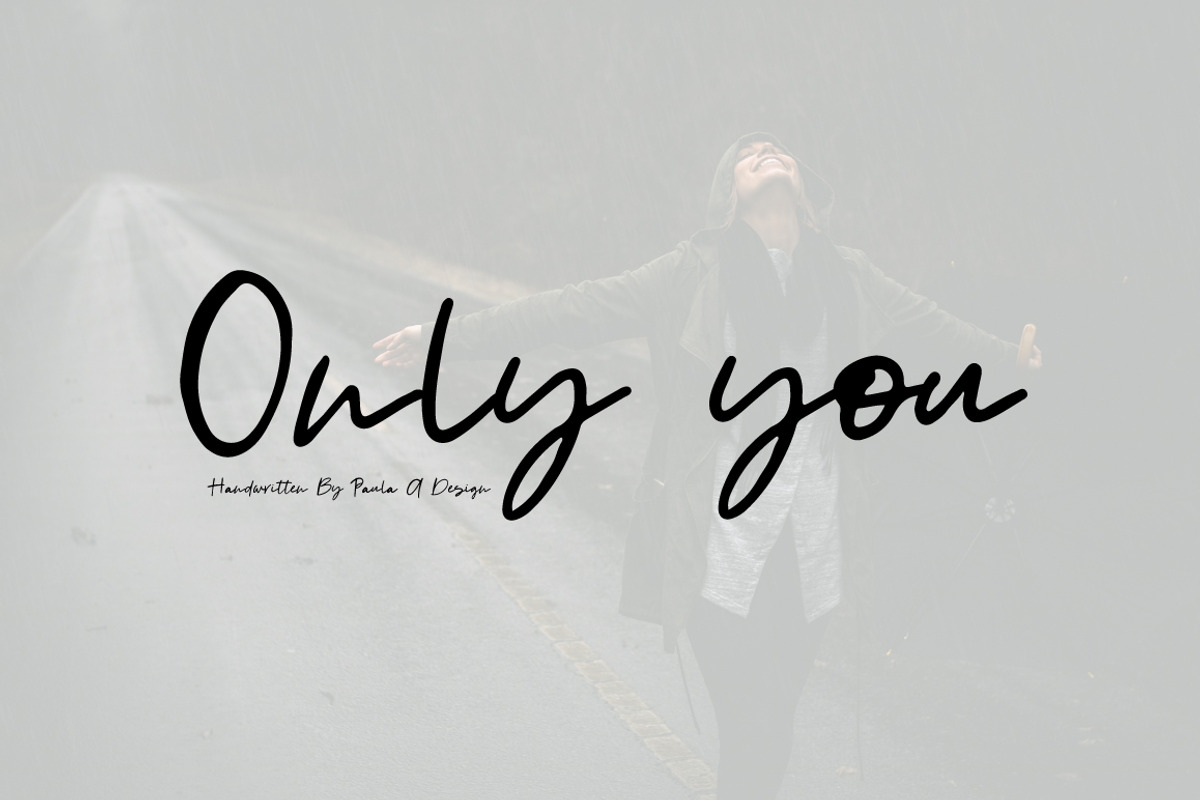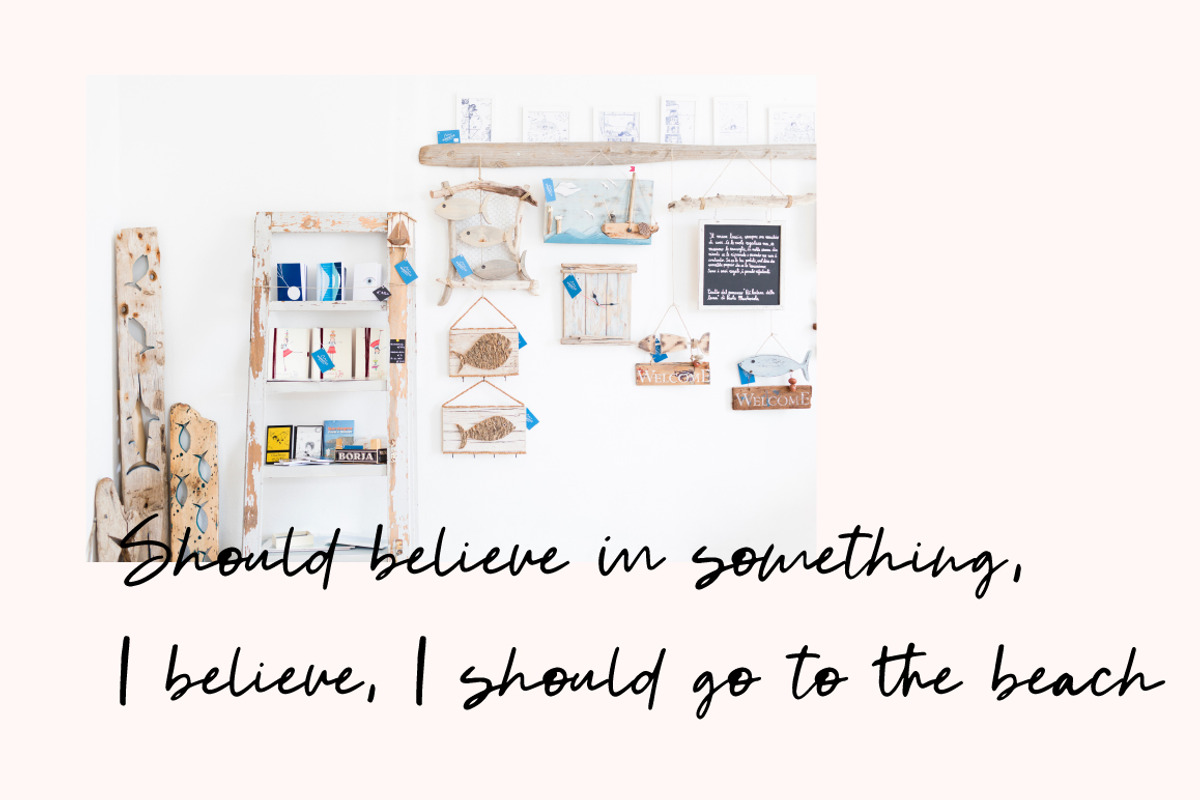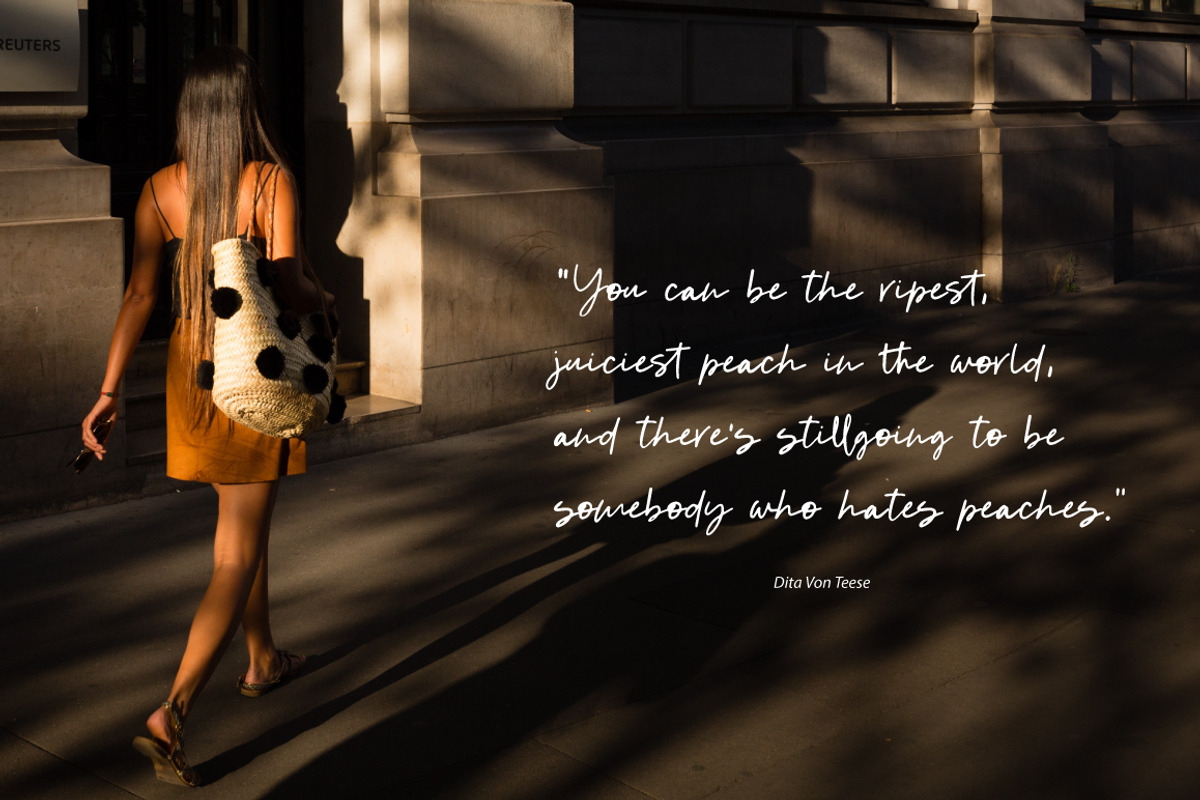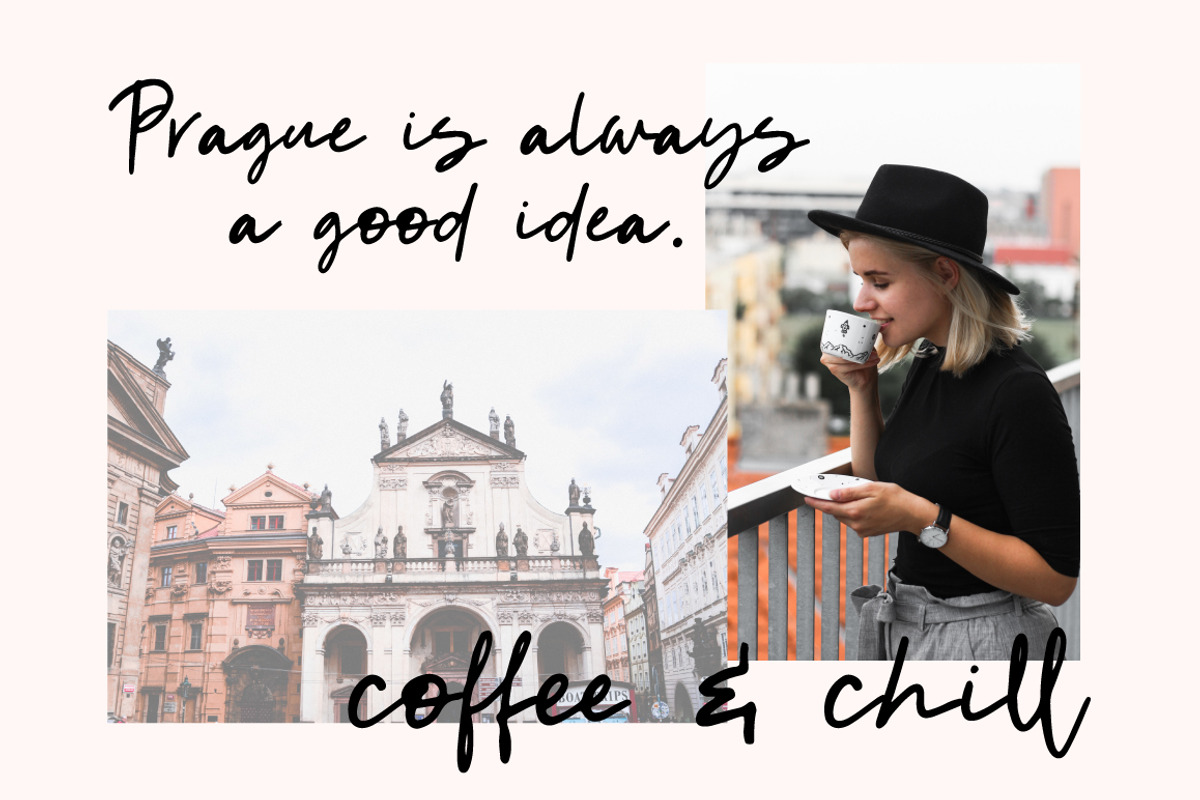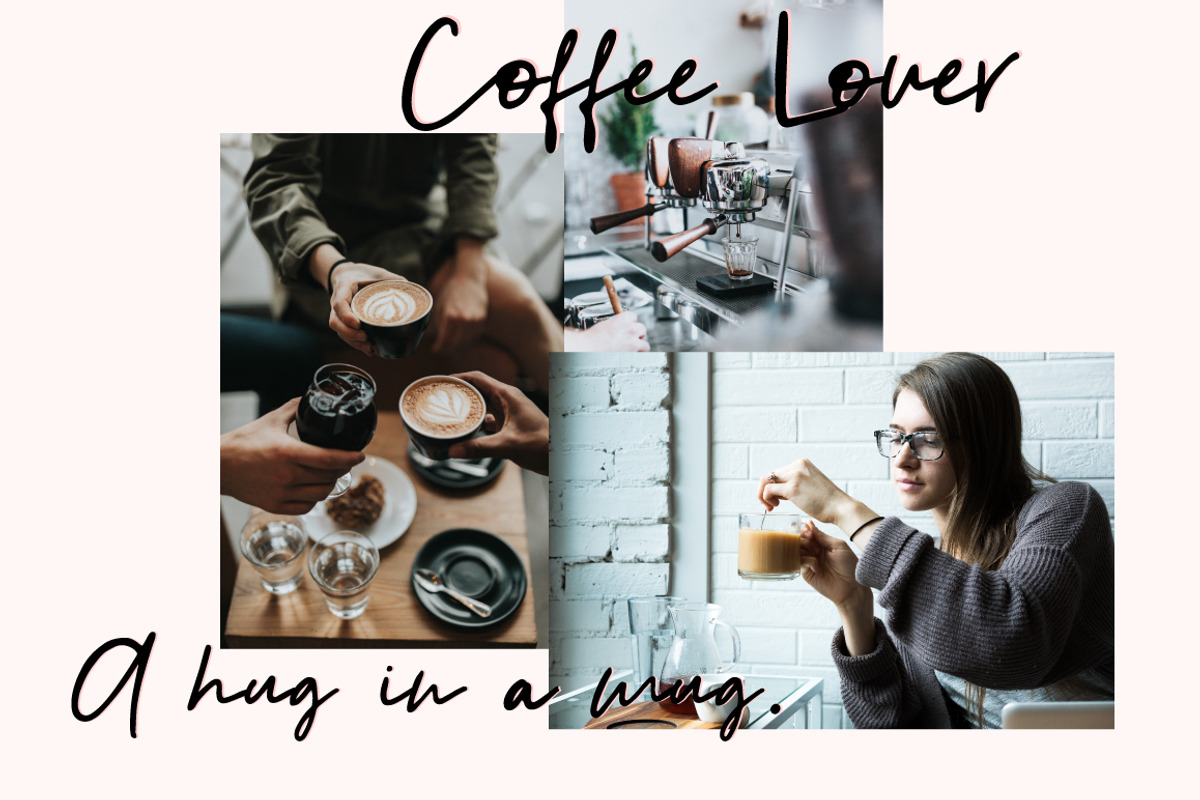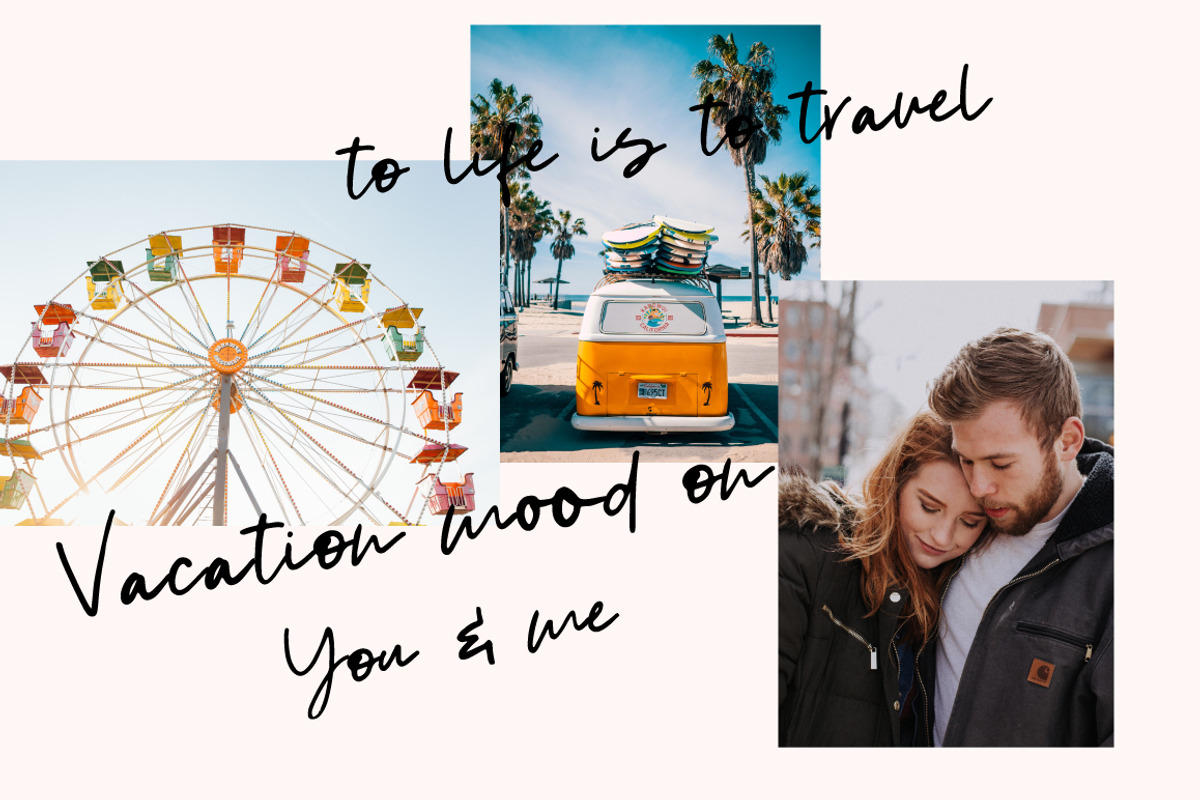
Only you | Handwritten Font
Introducing Only you - A Classic Stylist font perfect for high impact headlines
Every single letter has been creative carefully and Perfectly Playful new font pair. This font is a perfect script designed for making your set of invitations, Brand, blog posts, and more completely beautiful